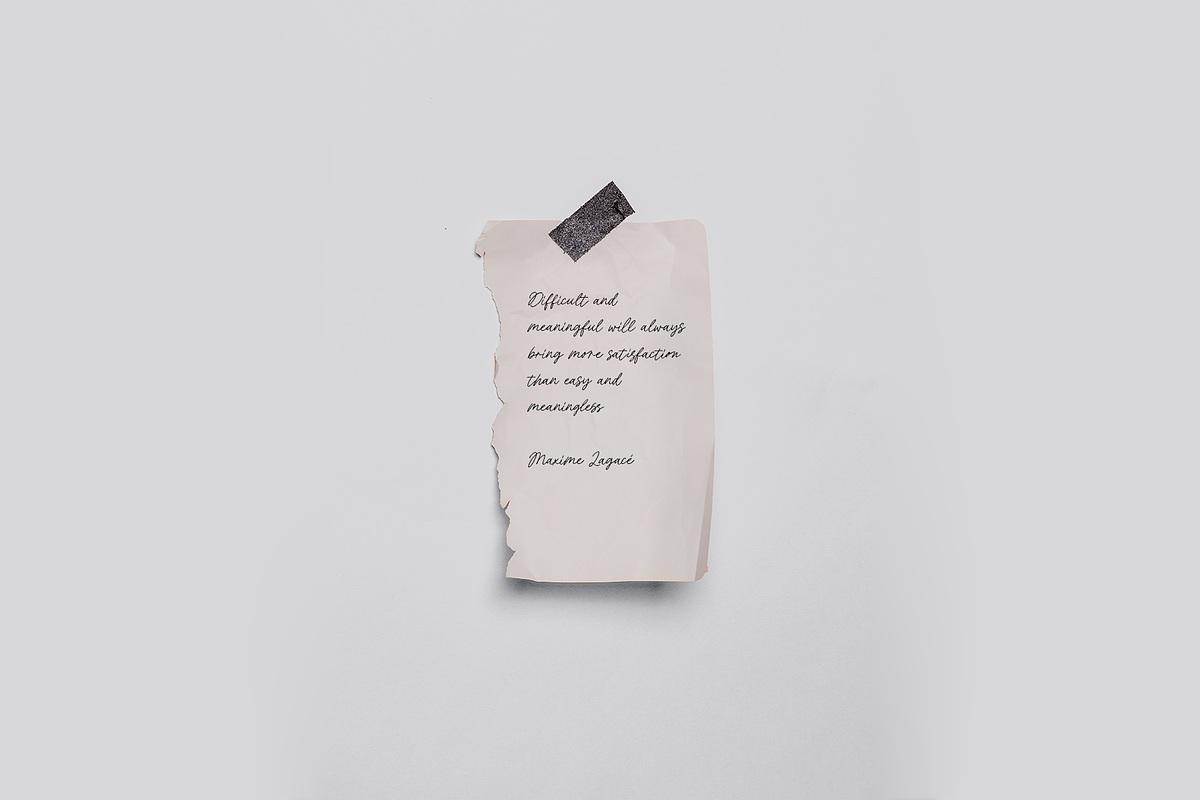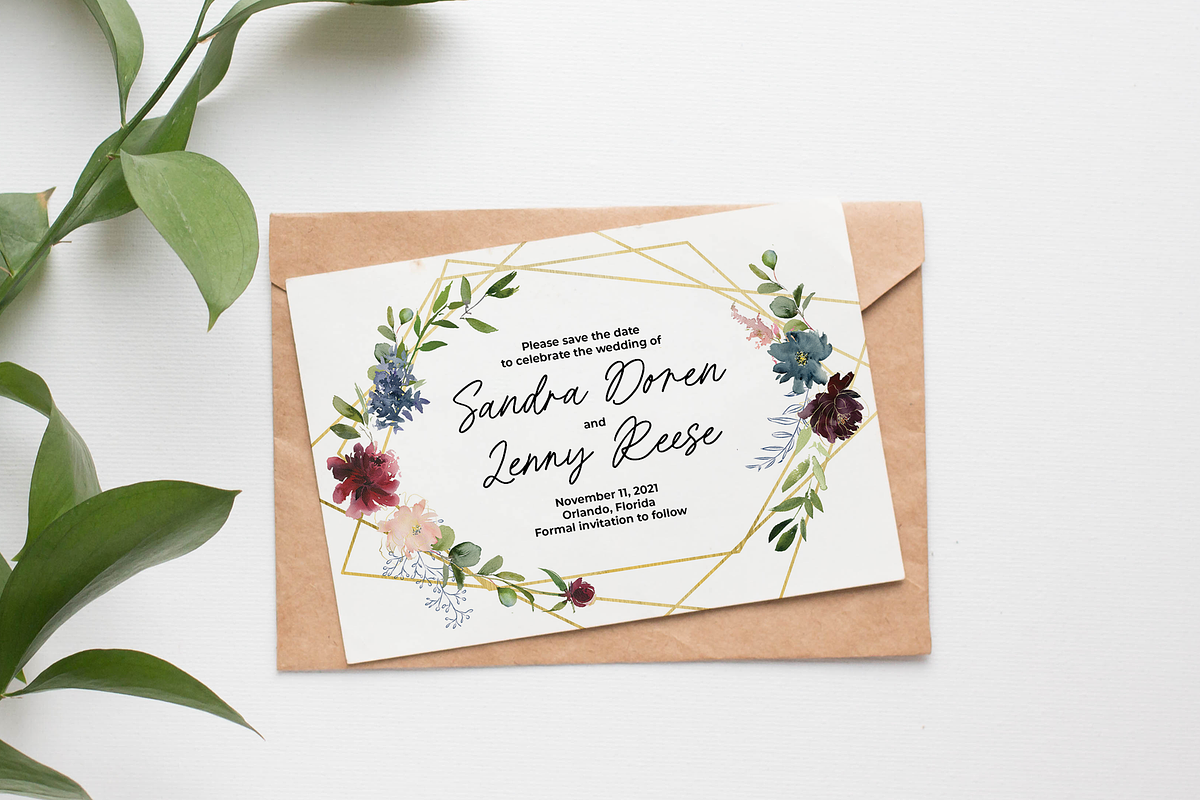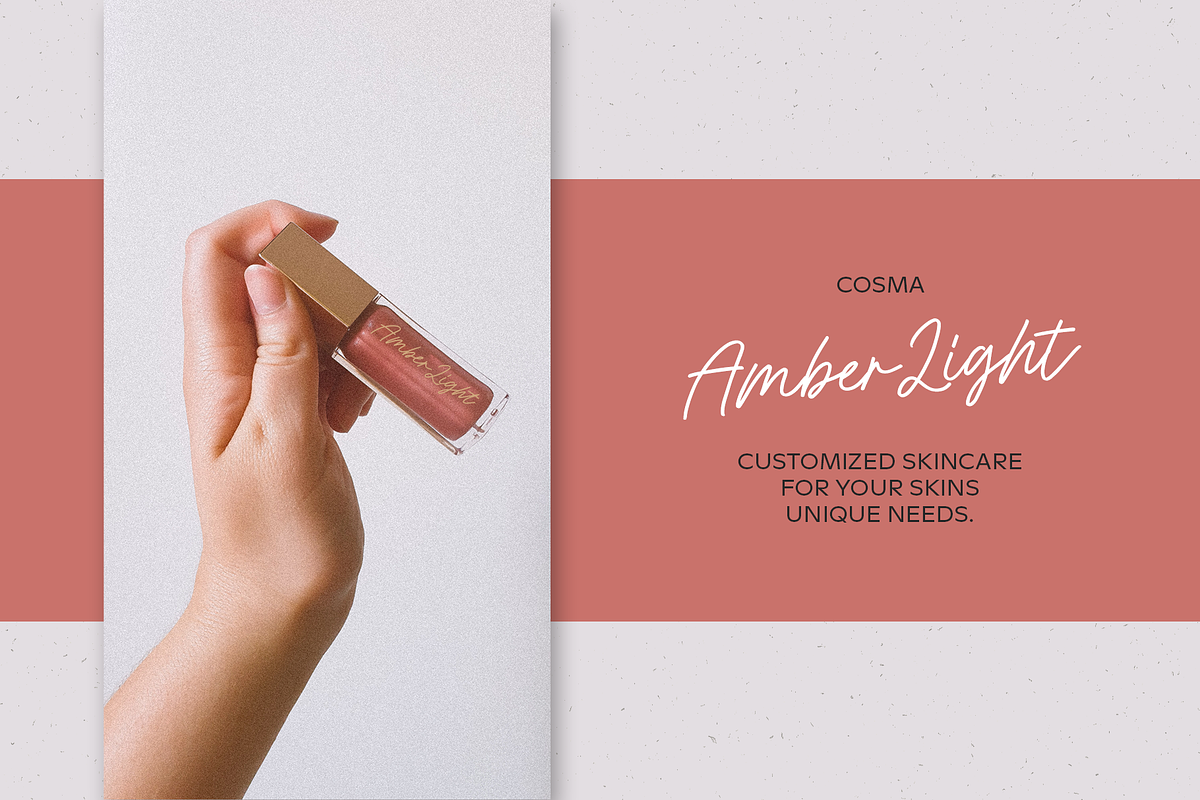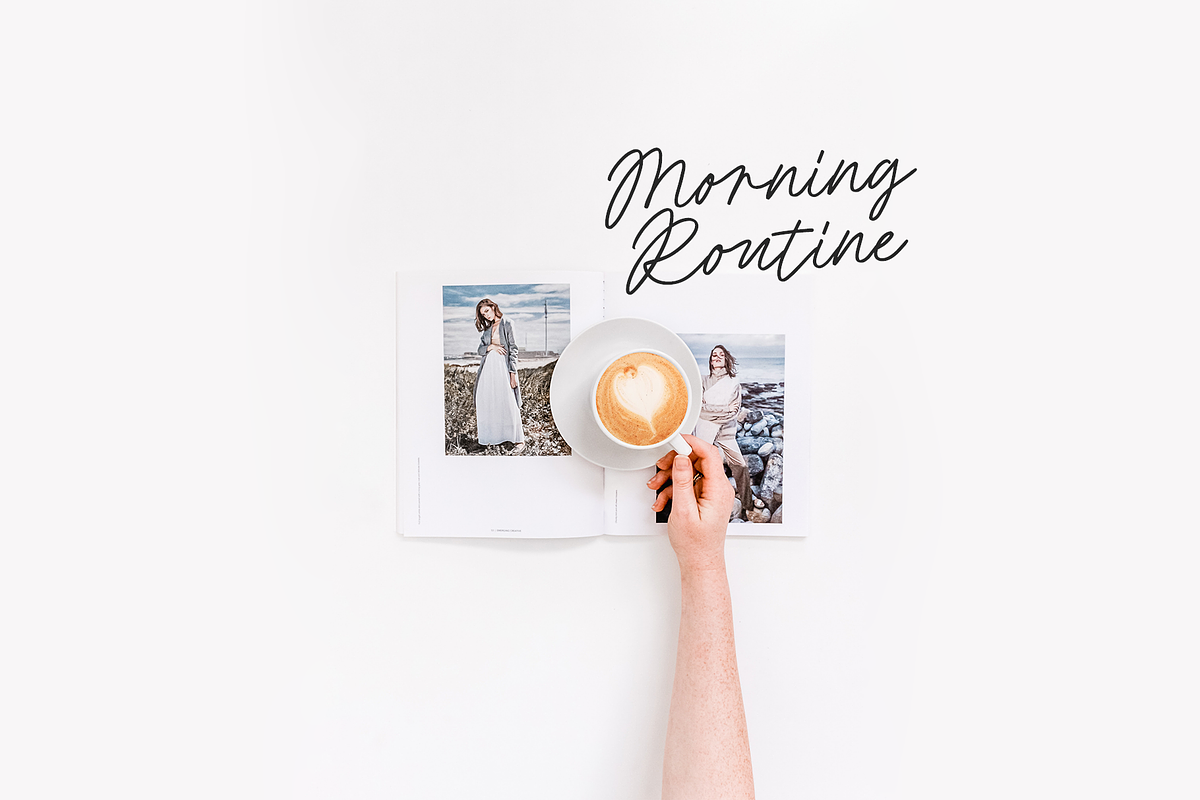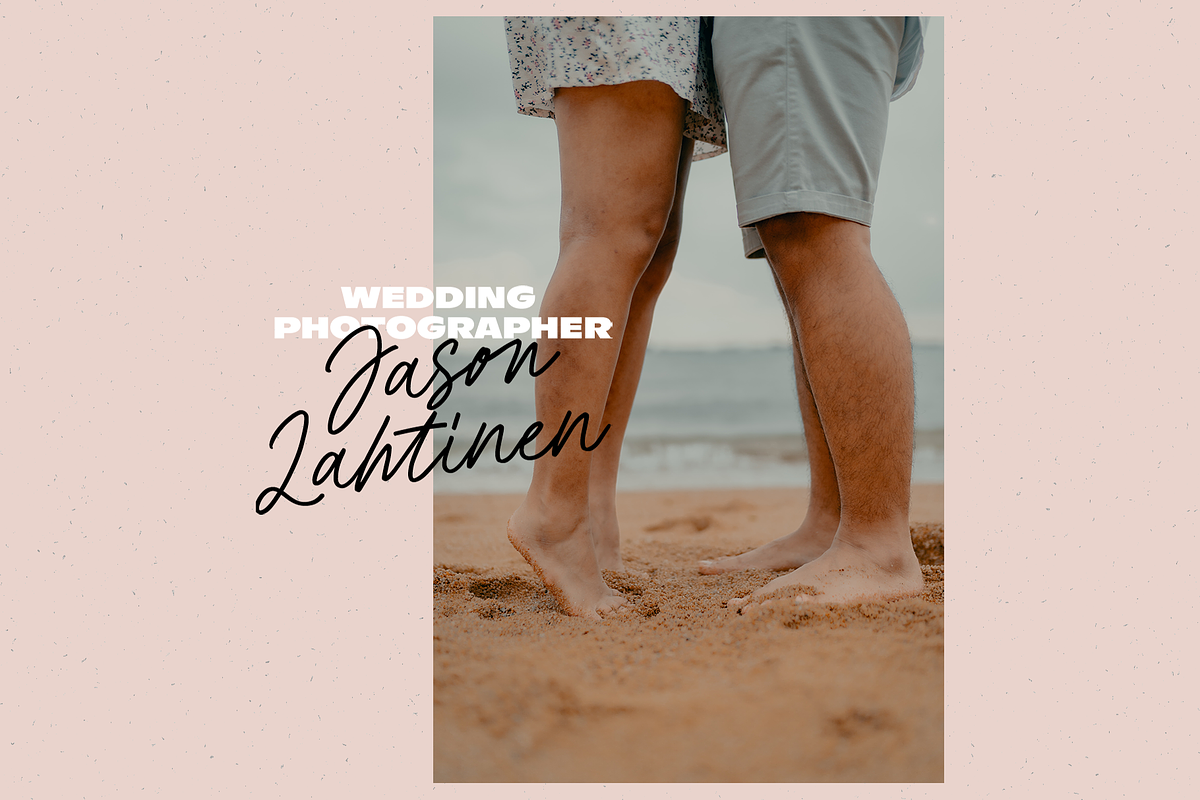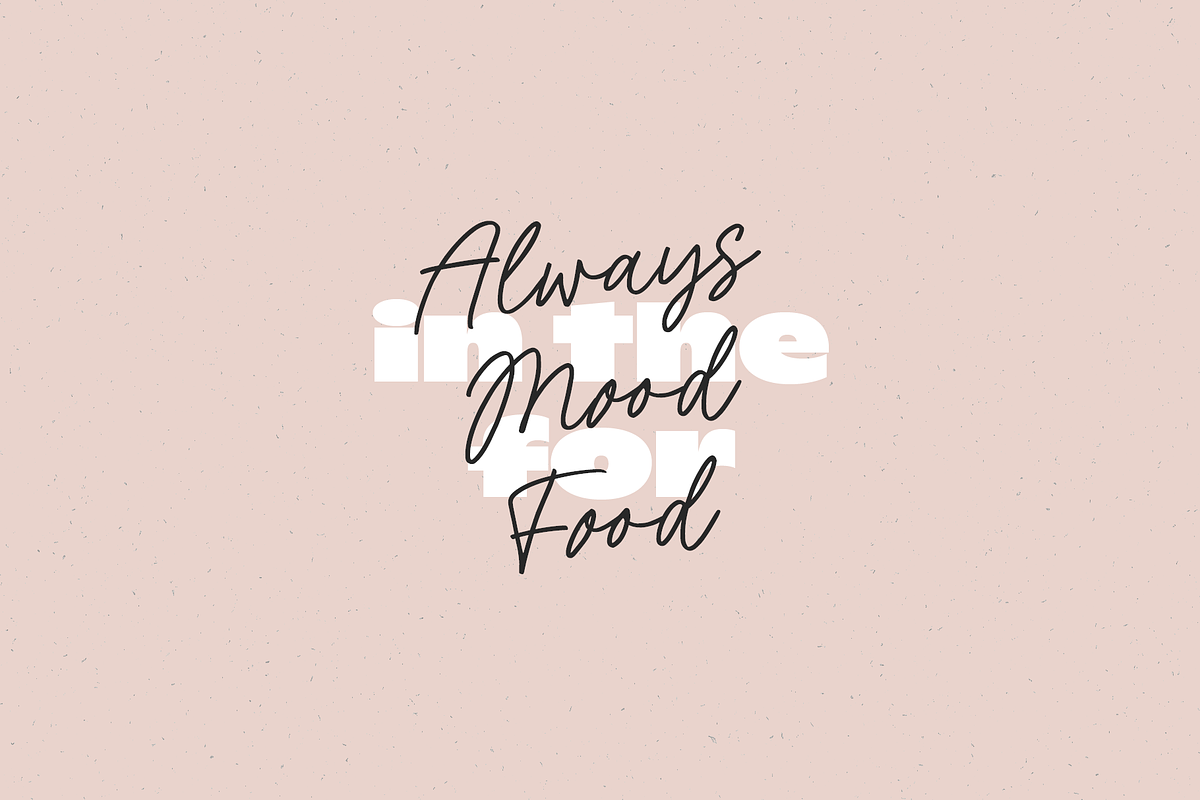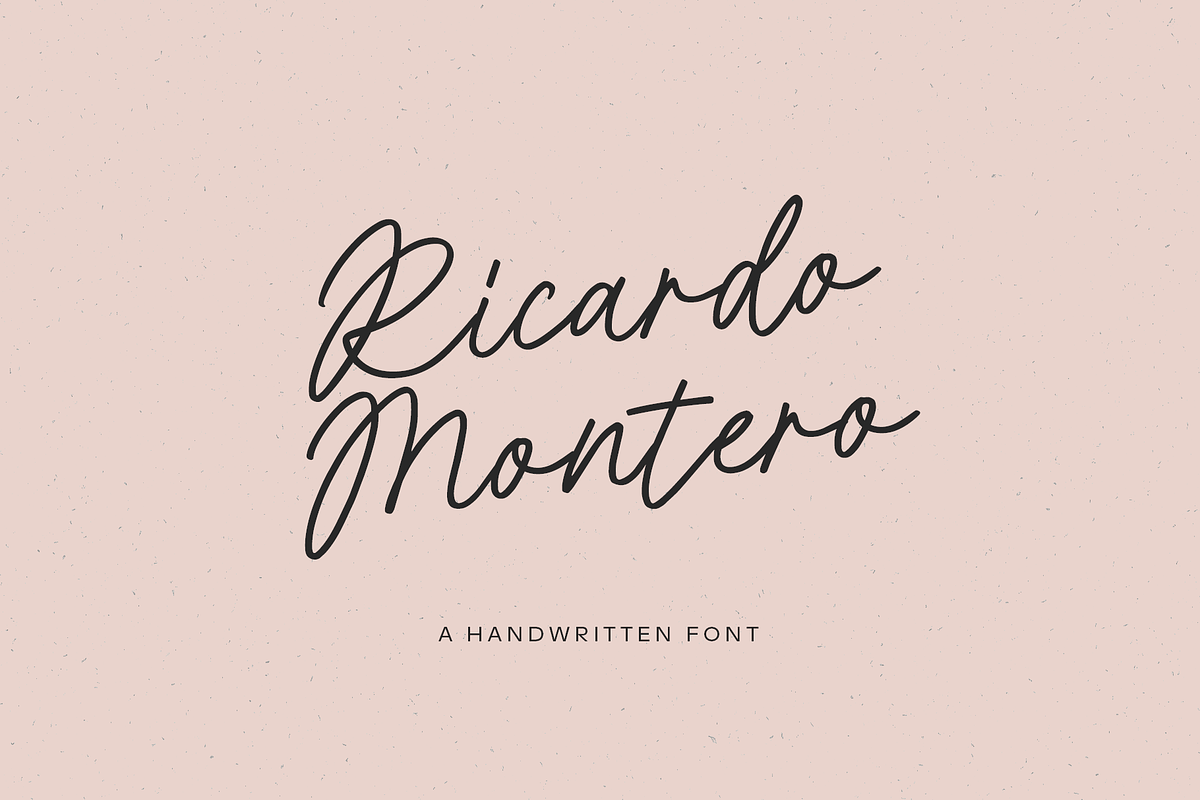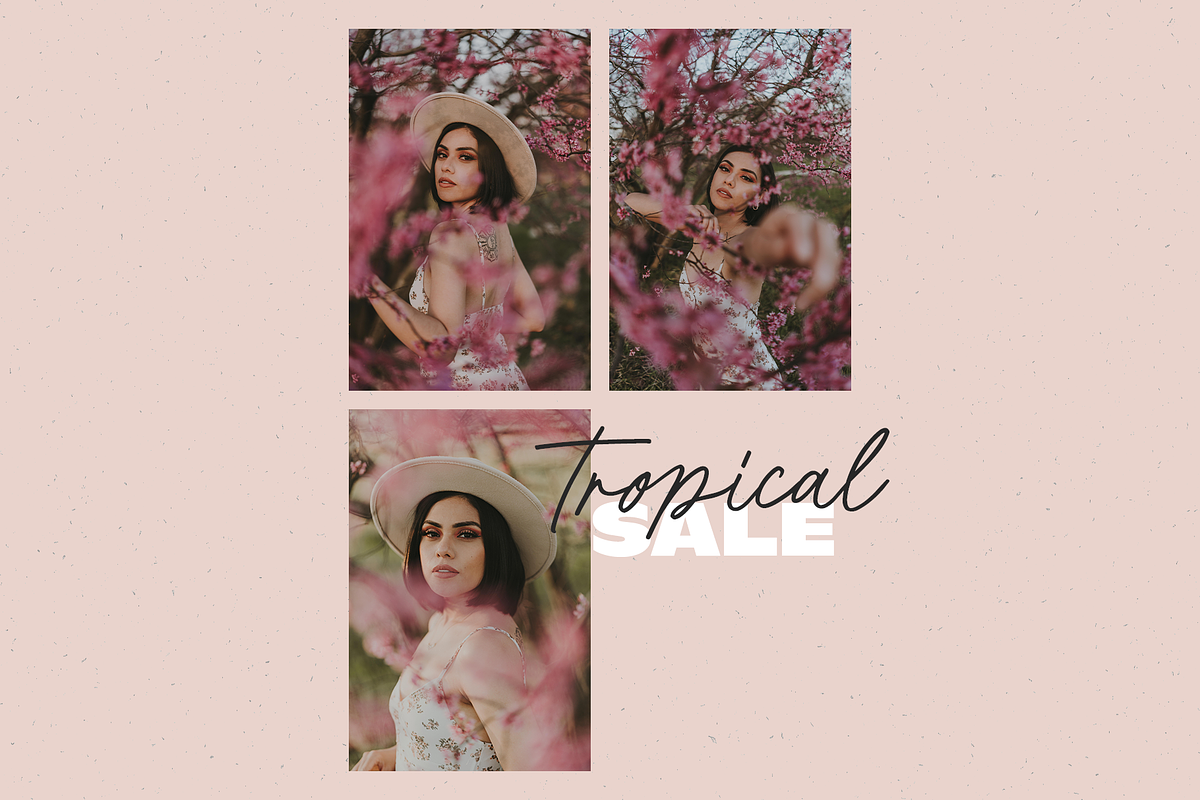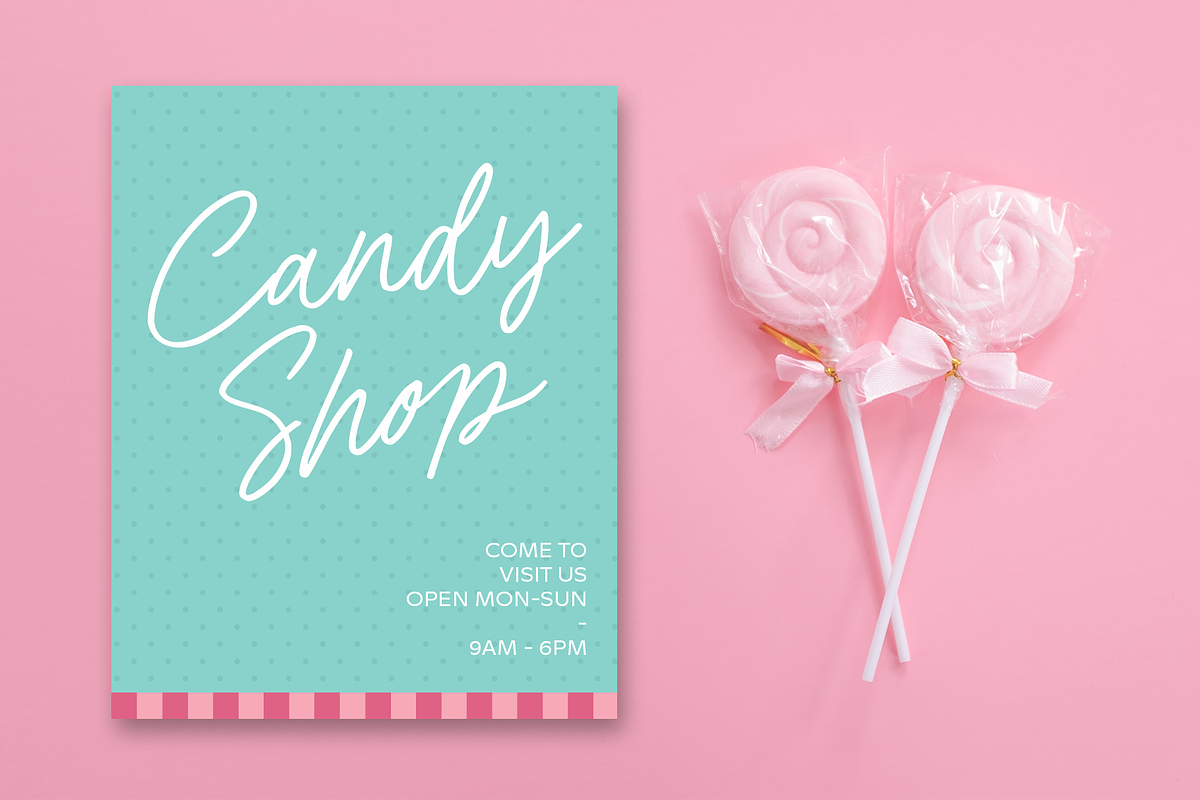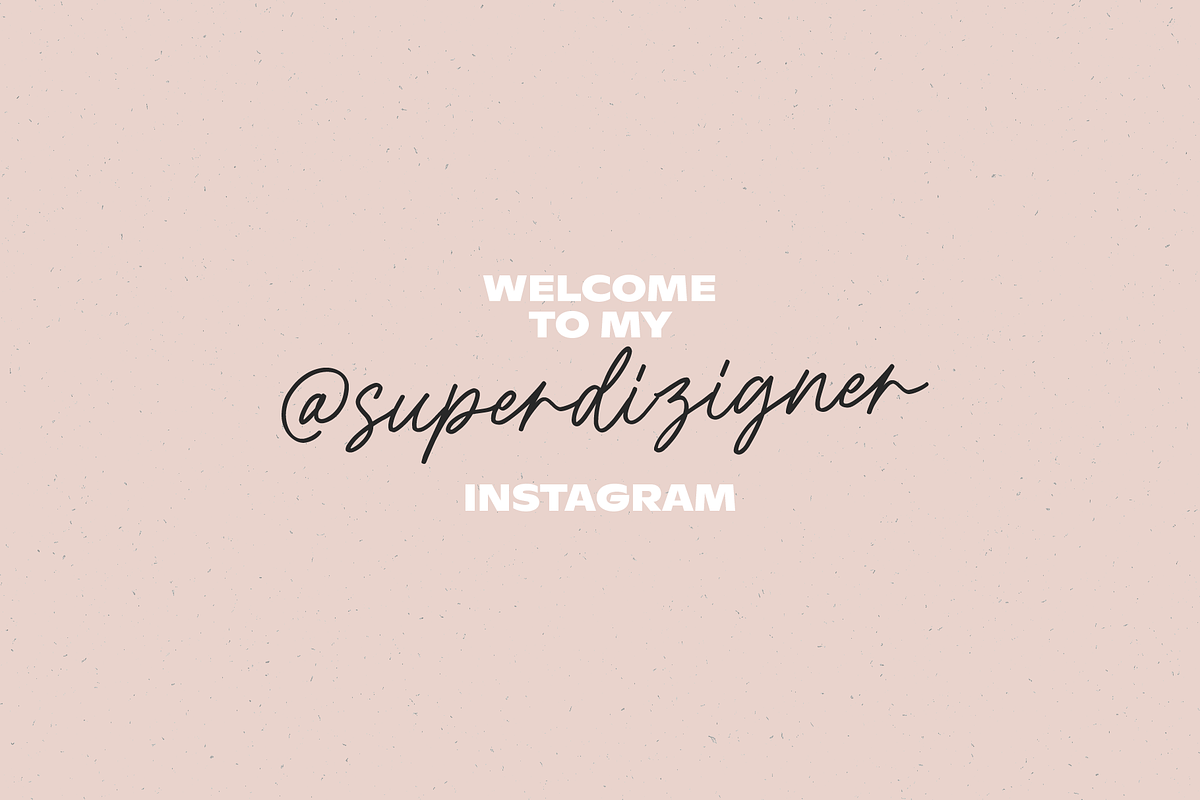
Ricardo Montero Handwritten Script
Ricardo Montero will be perfect for wedding lettering, beautiful frame for your home, book covers, greeting cards, logos, marketing, magazines or anything that requires cute handwritten lettering :)